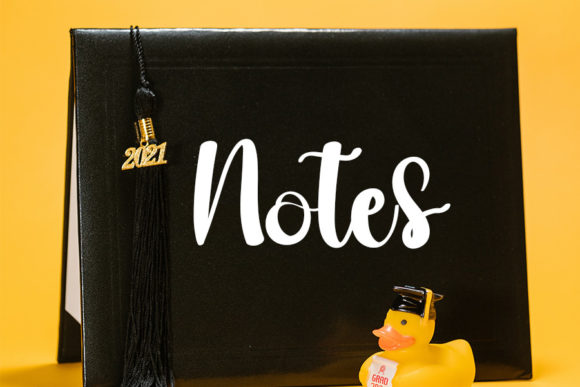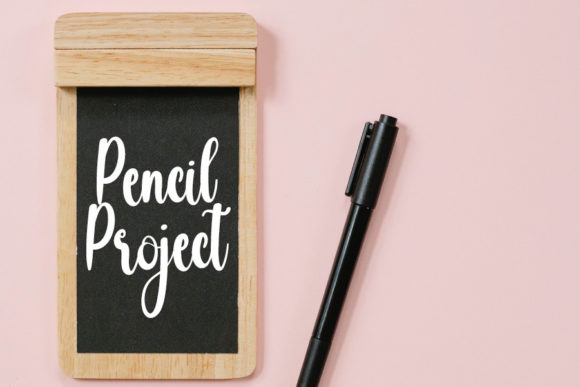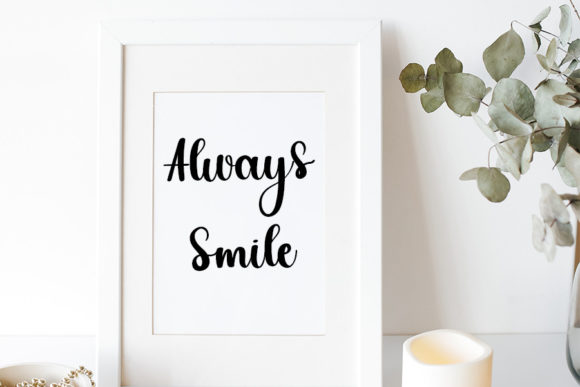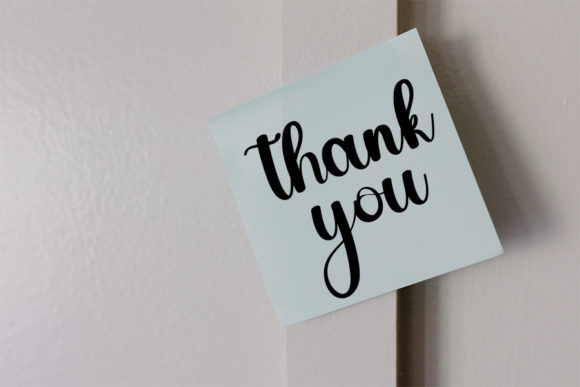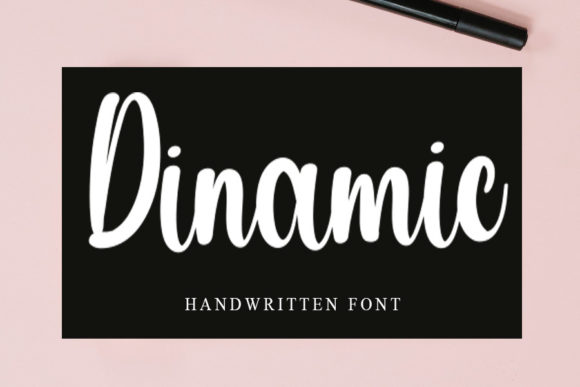
Discover the Charm of Dinamic Font: A Friendly Handwritten Delight
Are you tired of using the same old fonts in your designs? Look no further than Dinamic, a beautiful handwritten font that’s sure to become your new favorite. With its perfect blend of classic calligraphic influences and modern freshness, Dinamic is the ideal choice for designers and crafters looking to add a touch of elegance and personality to their work.
The Story Behind Dinamic
Dinamic is more than just a font – it’s a carefully crafted tool designed to bring a sense of warmth and approachability to your designs. Its friendly and inviting nature makes it perfect for a wide range of projects, from wedding invitations and branding materials to blog posts and social media graphics.
What Makes Dinamic So Special?
- Classy Calligraphic Influences: Dinamic’s roots in traditional calligraphy give it a sophisticated and refined feel that’s perfect for designs that require a touch of luxury.
- Contemporary and Fresh: Despite its classic influences, Dinamic feels modern and fresh, making it suitable for a wide range of design applications.
- Handwritten Warmth: The font’s handwritten nature gives it a personal and approachable feel that’s sure to resonate with your audience.
- Versatile: Whether you’re designing a logo, creating a social media graphic, or crafting a blog post, Dinamic is the perfect choice.
How to Use Dinamic in Your Designs
Dinamic is an incredibly versatile font that can be used in a variety of design applications. Here are a few ideas to get you started:
- Wedding Invitations: Add a touch of elegance and sophistication to your wedding invitations with Dinamic.
- Branding Materials: Use Dinamic to create a consistent and recognizable brand identity that sets you apart from the competition.
- Blog Posts: Add a personal touch to your blog posts with Dinamic, making them feel more approachable and engaging.
- Social Media Graphics: Use Dinamic to create eye-catching social media graphics that grab attention and drive engagement.
Tips for Getting the Most Out of Dinamic
To truly get the most out of Dinamic, here are a few tips to keep in mind:
- Experiment with Font Sizes: Dinamic looks great in a variety of font sizes, so don’t be afraid to experiment to find the perfect fit for your design.
- Play with Color: Dinamic looks great in a range of colors, so try experimenting with different hues to find the perfect match for your brand.
- Mix and Match: Don’t be afraid to pair Dinamic with other fonts to create a unique and eye-catching design.
Dinamic is a truly special font that’s sure to become a favorite in your design toolkit. With its perfect blend of classic calligraphic influences and modern freshness, it’s the ideal choice for designers and crafters looking to add a touch of elegance and personality to their work. So why wait? Give Dinamic a try today and discover the charm of this beautiful handwritten font for yourself!
- What is Dinamic font? Dinamic is a friendly handwritten font carefully designed to become a true favorite.
- What makes Dinamic unique? Dinamic’s unique blend of classic calligraphic influences and modern freshness sets it apart from other fonts.